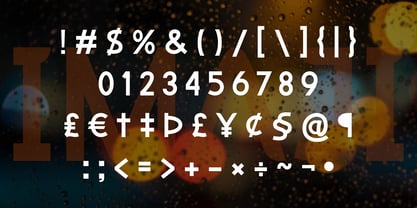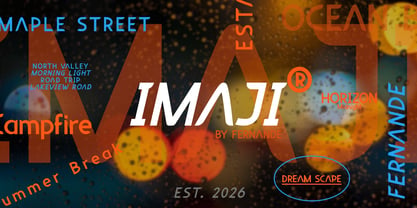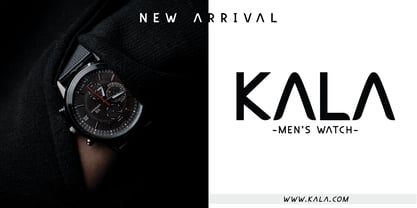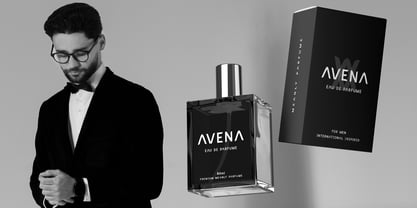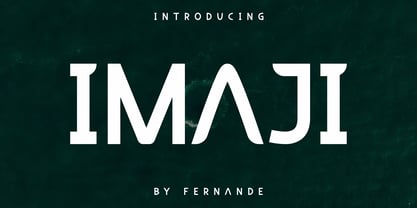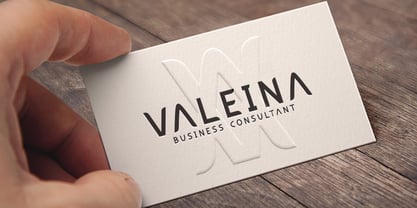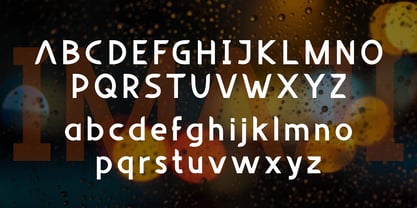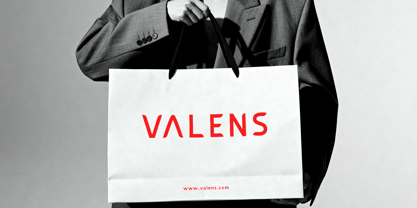
Imaji
by Fernande
Introducing IMAJI, a modern display typeface that combines bold geometric construction with unique letterforms to create a clean yet memorable visual identity. Every character is carefully crafted to deliver a strong presence while maintaining excellent readability, making it an ideal choice for contemporary design projects.
With its distinctive style and confident appearance, IMAJI is perfect for logos, branding, headlines, posters, packaging, magazine covers, editorial layouts, advertising, social media graphics, merchandise, and other creative applications where typography takes center stage. Whether you're building a modern brand or creating eye-catching promotional materials, IMAJI helps your message stand out with clarity and personality.
Bring a fresh, bold, and creative touch to your next design with IMAJI.